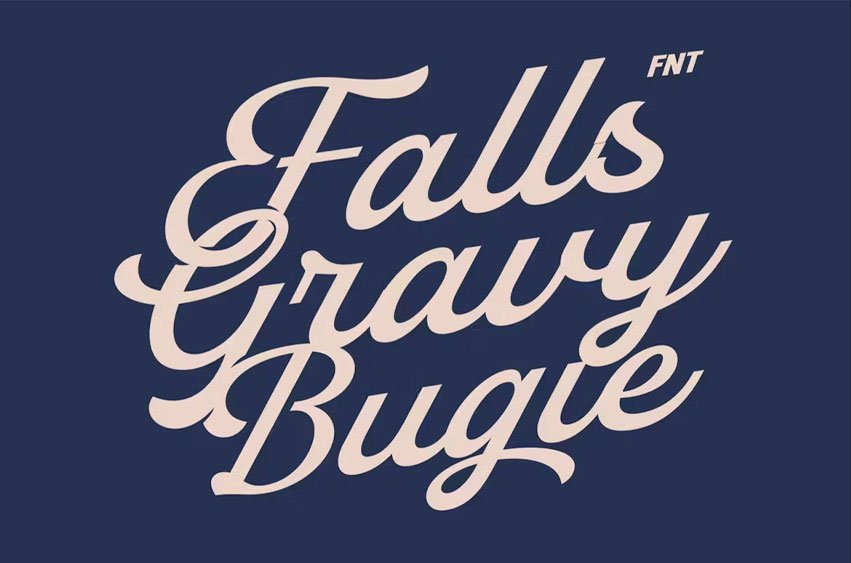
Falls Gravy Bugies Font will perfect for many project: book, magazines, logo, branding, photography, quotes, blog header, poster, advertisements, etc.